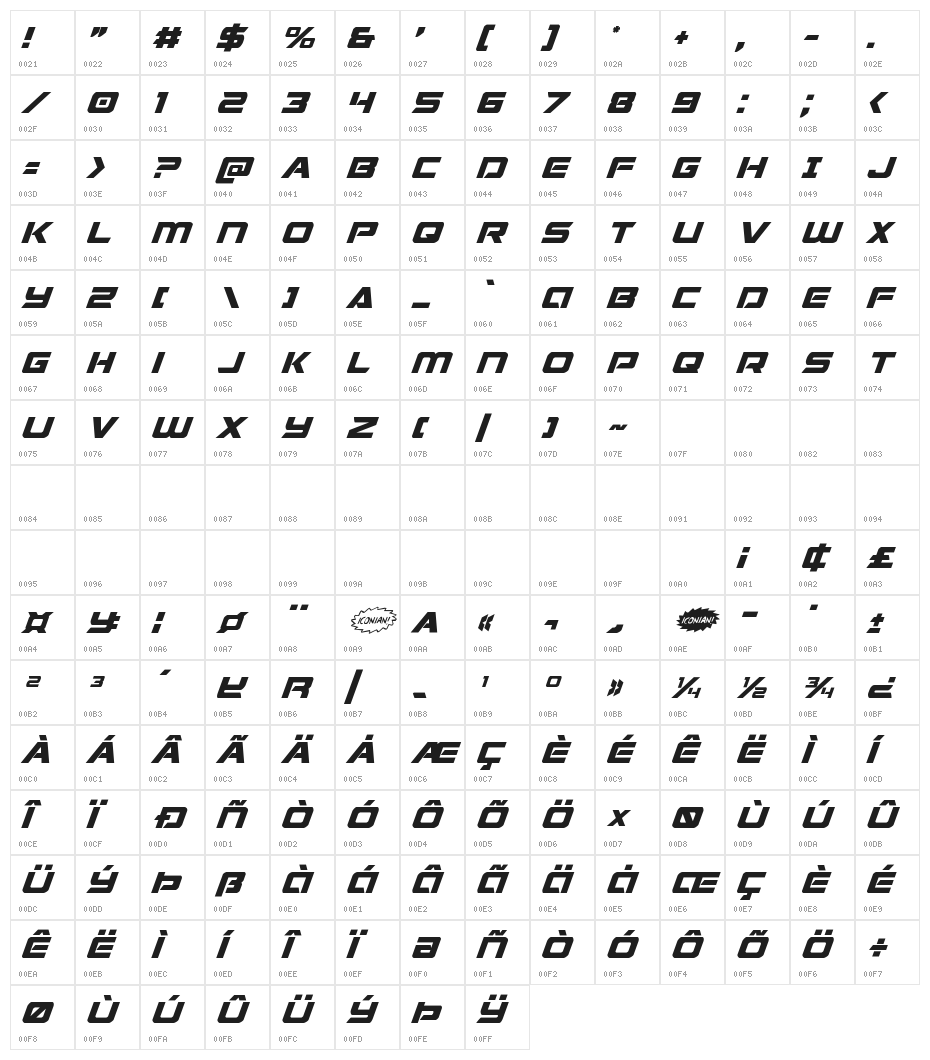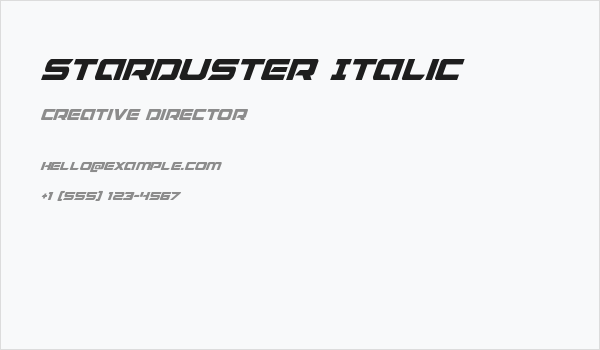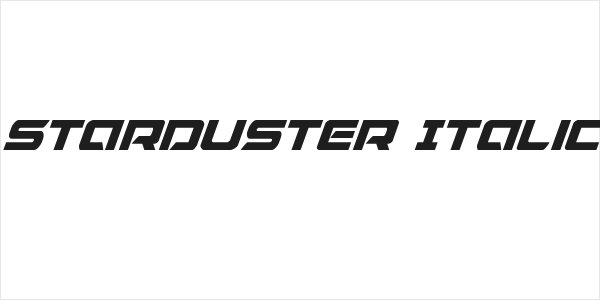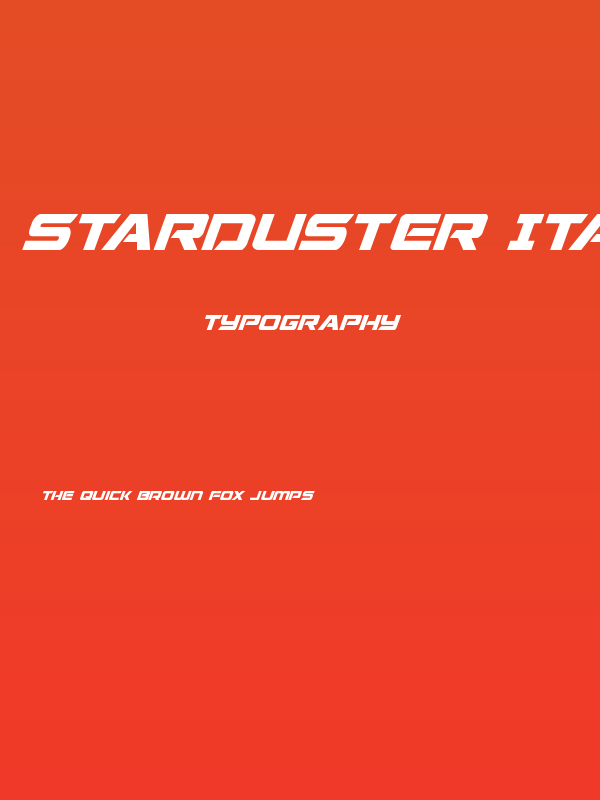
Starduster Italic Font
Starduster Italic Description
This font features a bold, italicized style with a futuristic and dynamic appearance. The characters are designed with sharp angles and a forward-leaning slant, giving a sense of motion and speed. The uppercase and lowercase letters maintain a consistent geometric structure, while the numbers and special characters complement the overall aesthetic. The font's design is sleek and modern, making it suitable for projects that require a strong and impactful visual presence.
| Proposed Projects | Ideal for sci-fi themed designs, technology branding, video game titles, and sports team logos. |